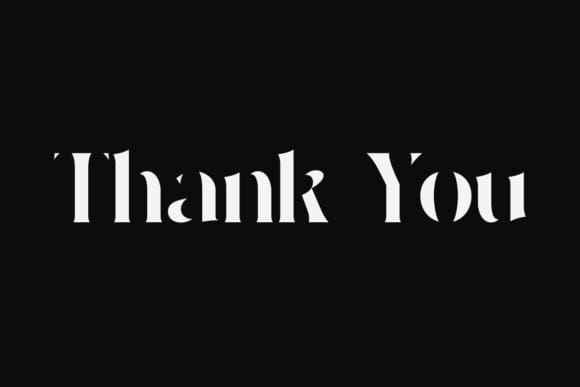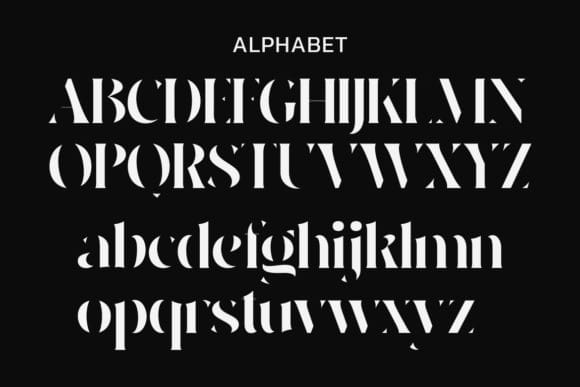
Cavier Font
Cavier Font is a modern minimalist font that keeps things sleek and simple. With clean lines and contemporary style, this font adds a touch of sophistication to any project. Whether you’re designing a logo, a website, or any creative endeavor, CAVIER’s minimalism ensures a polished and modern look. Streamlined and versatile, it’s the perfect choice for those who appreciate the beauty of simplicity in their typography.